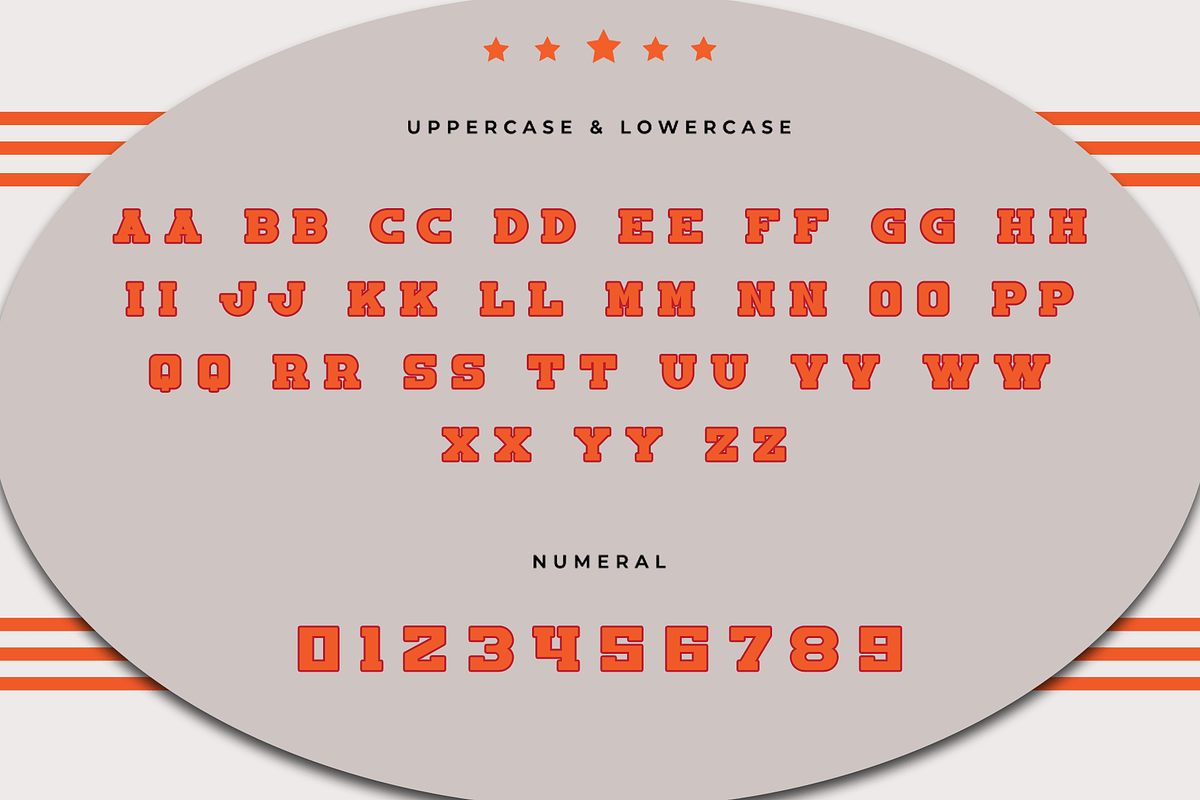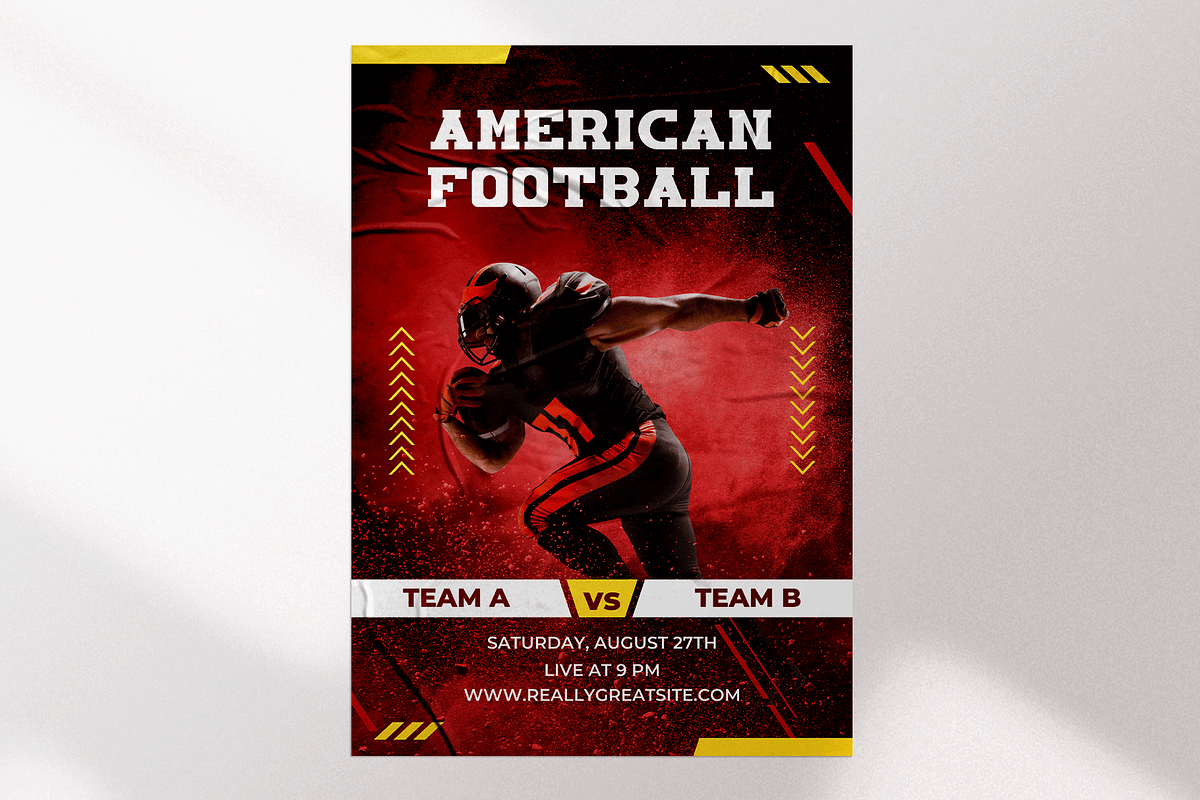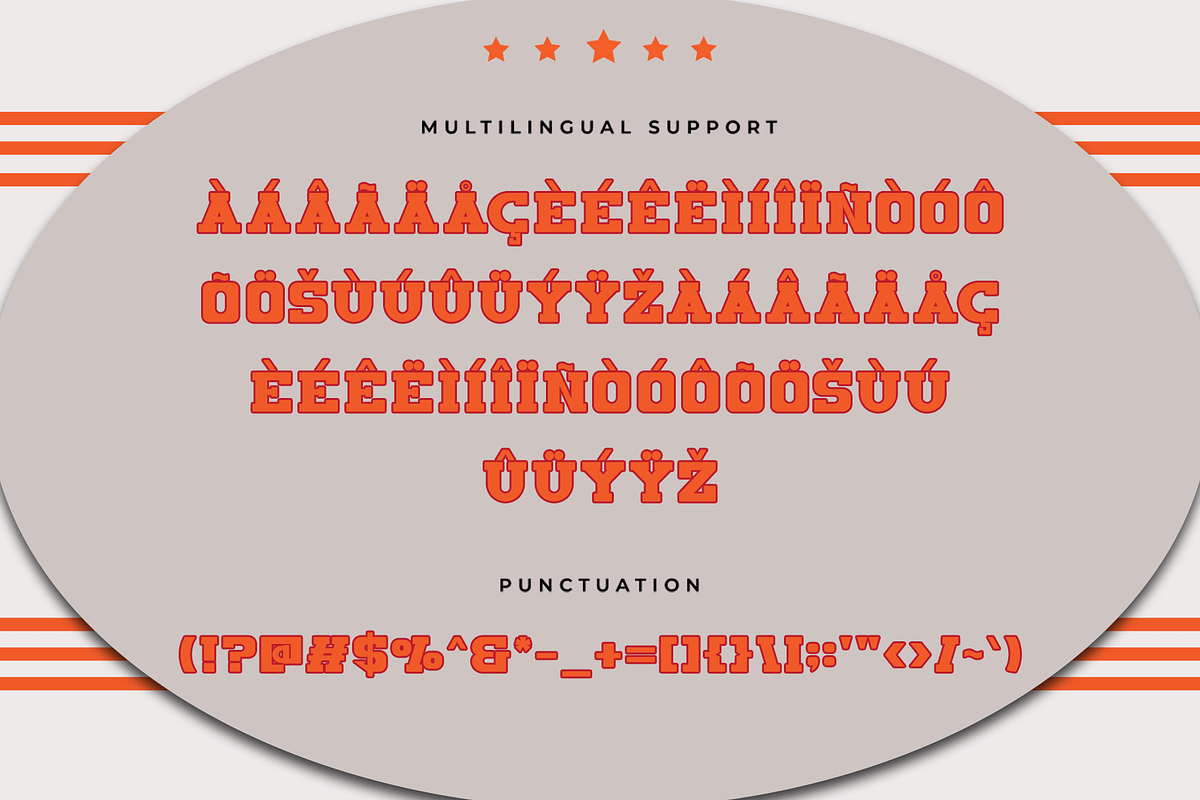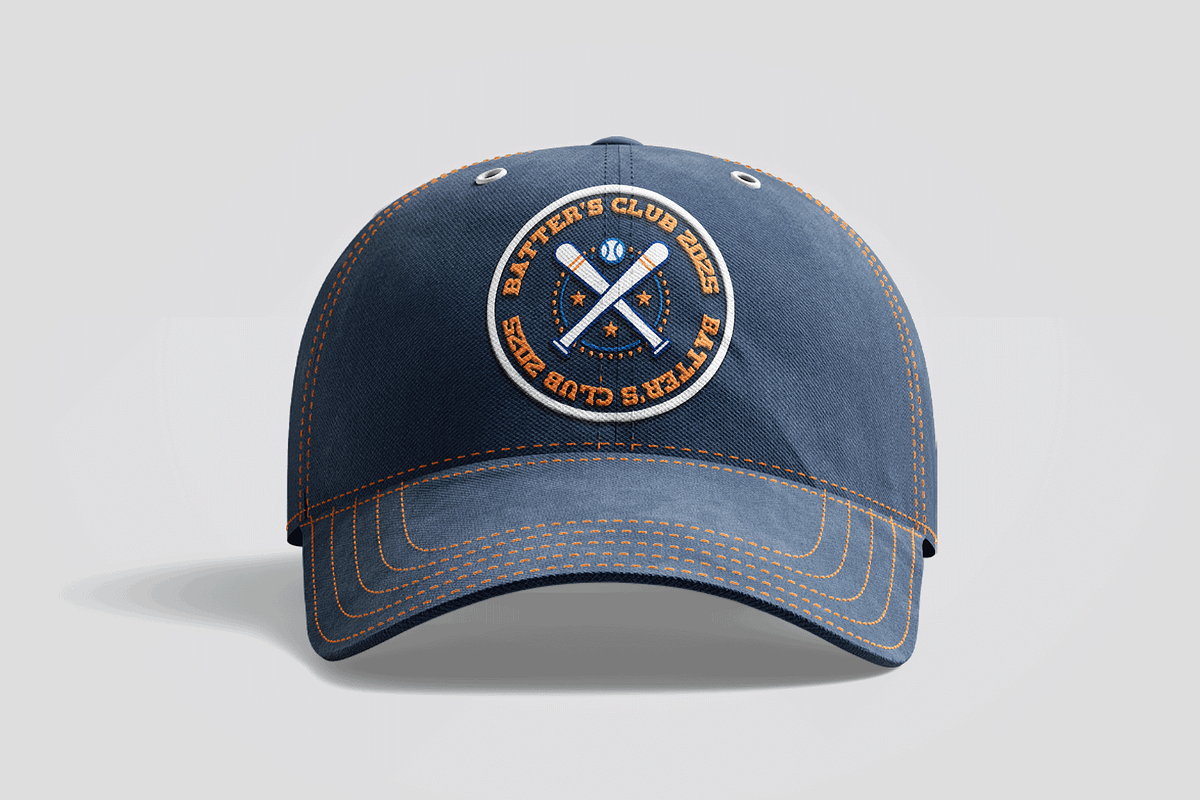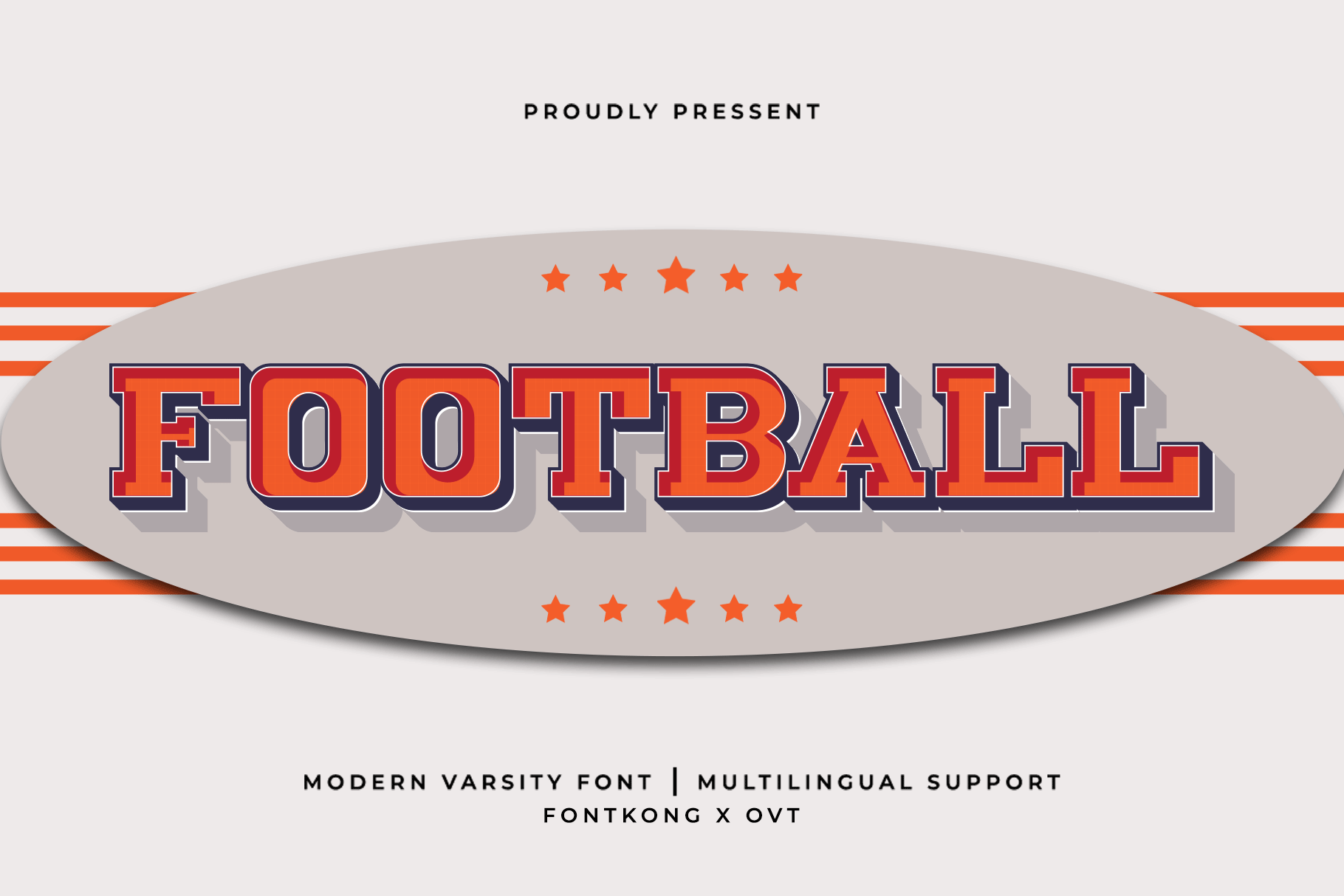
Football - Modern Varsity Font
Introducing "Football," a modern varsity font that combines bold tradition with contemporary spirit. Perfect for graphic designers, sports enthusiasts, and creatives working on athletic-themed projects, Football offers a striking typeface that embodies the excitement and energy of the game.
Ideal for team jerseys, sports branding, event posters, merchandise, and promotional materials, Football’s robust and athletic characters provide a dynamic and powerful visual presence. Each letter is meticulously crafted to ensure readability and impact, making your designs both bold and memorable.
The "Football" font includes a complete set of uppercase and lowercase letters, numbers, punctuation marks, and special characters. This versatile set ensures seamless integration into various design projects, from spirited team logos to vibrant event advertisements.
Score big with your designs using Football, the modern varsity font that brings bold tradition and modern spirit to every project.